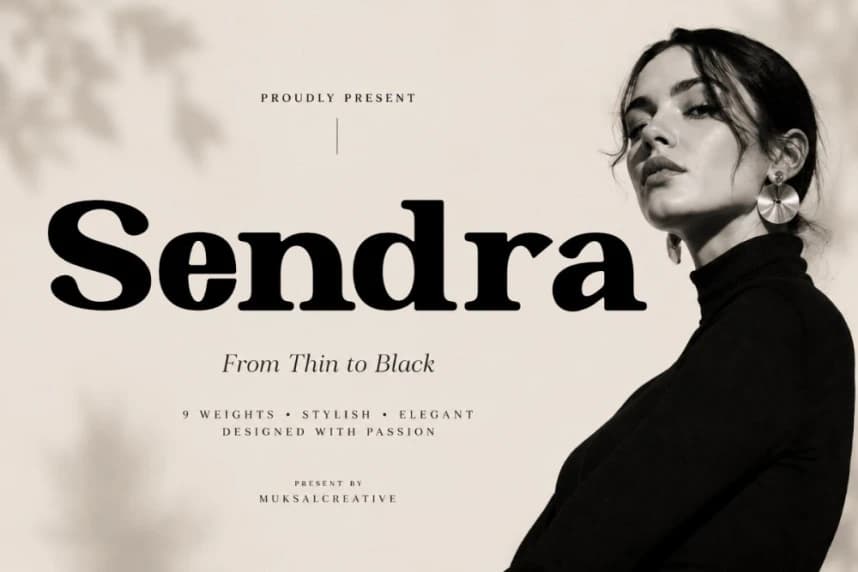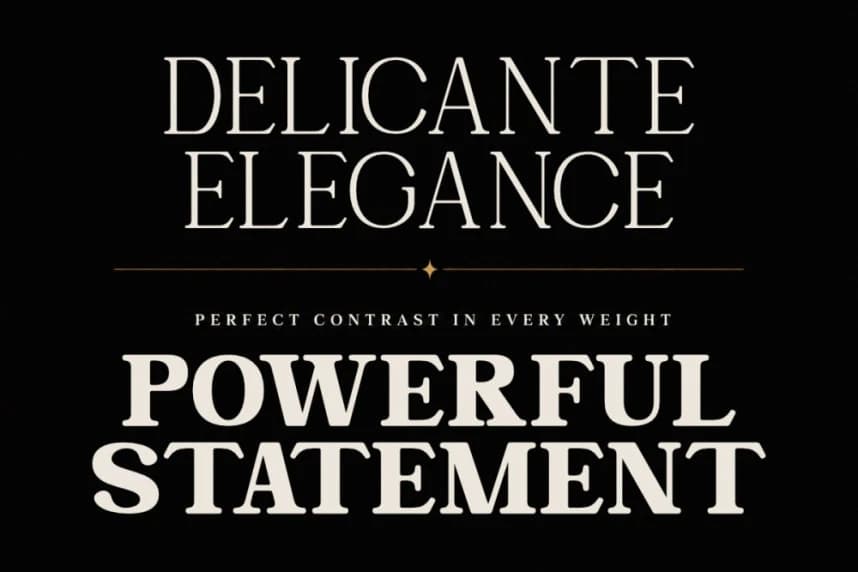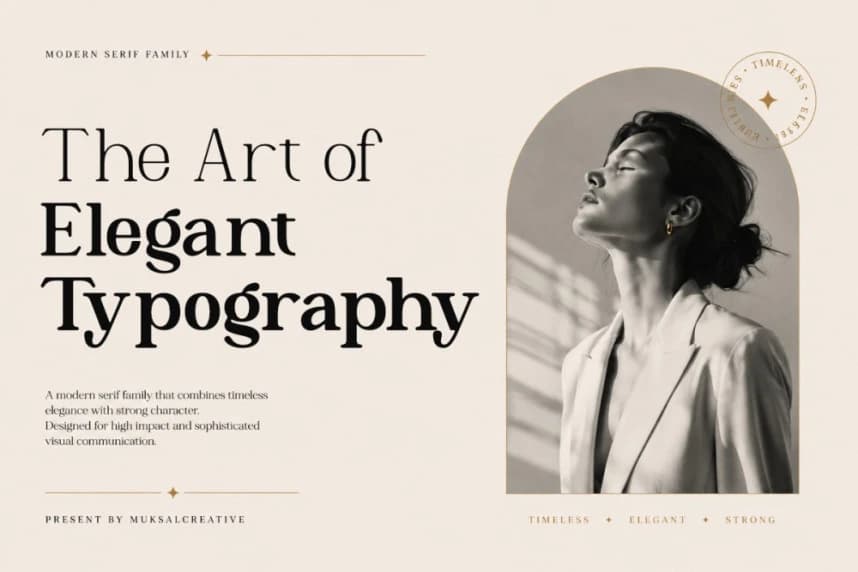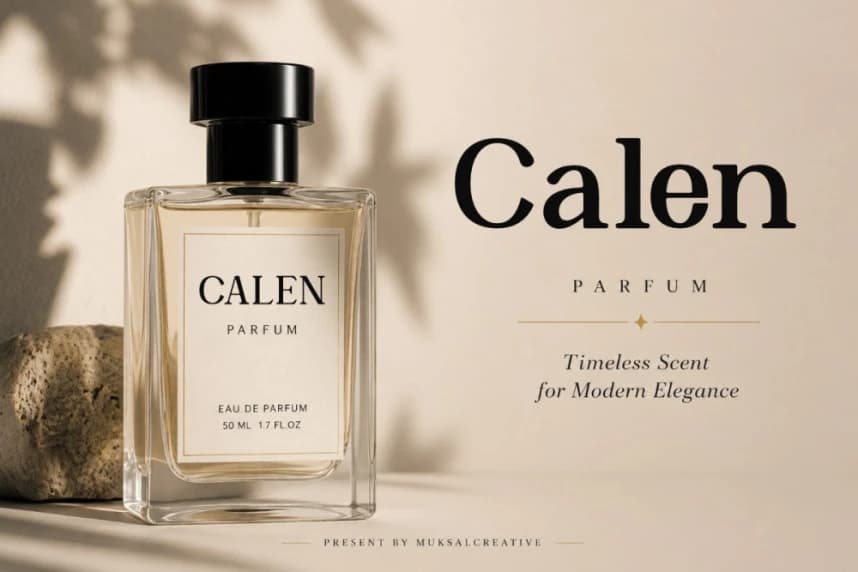
Sendra Font
Sendra Font is a refined modern serif family designed to bring timeless elegance and strong visual character into one sophisticated type system. Inspired by luxury editorials, high-end branding, and contemporary fashion typography